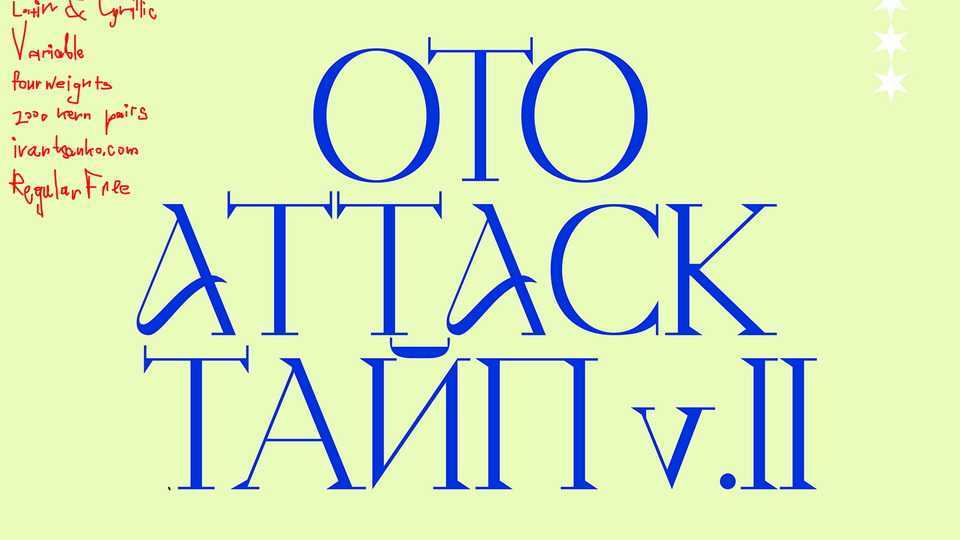
Download Otto Attack Type 2.0 font, an updated version of the crazy experimental Otto Attack typeface. Otto Attack features fully rebuild glyphs with saved the core characters, new more useful forms for letters and alternatives, Cyrillic with big Ukraine centered form support.
Designer: Ivan Tsanko